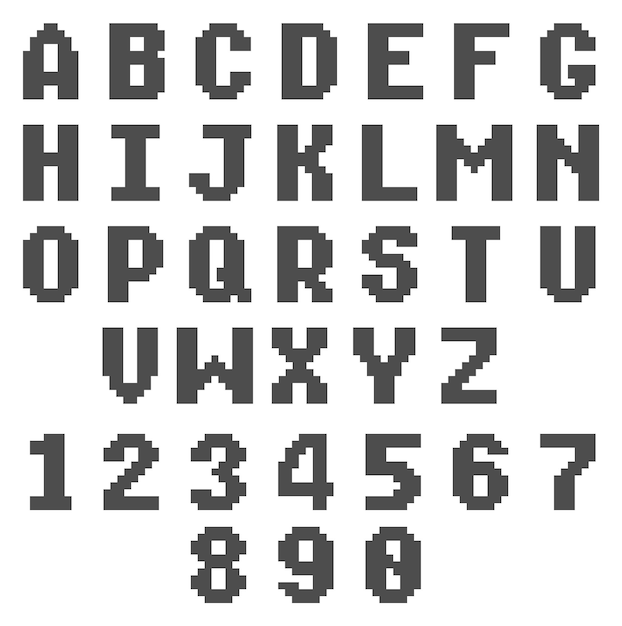
Pixel font set large letters and numeral units in pixel art style pixel bit alphabet
Pixel alphabet letters and numbers set in retro 8 bit style. Modern stylish fonts or typeface for headline design like poster, layout design, game, website or print. Typography vector.